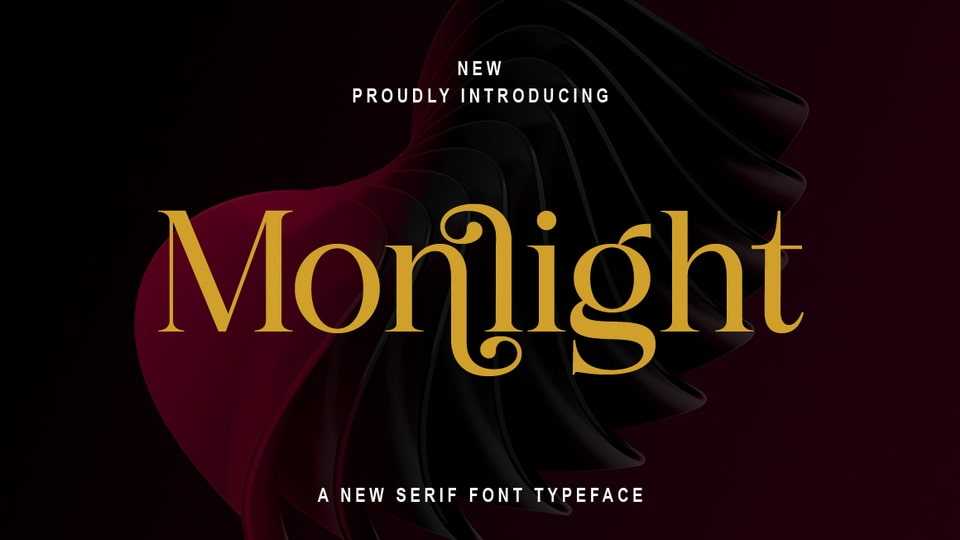
Download Monlight font, an elegant serif typeface with bold, clean, large shapes. The typeface as a whole is strong in conveying order and harmony between letters.